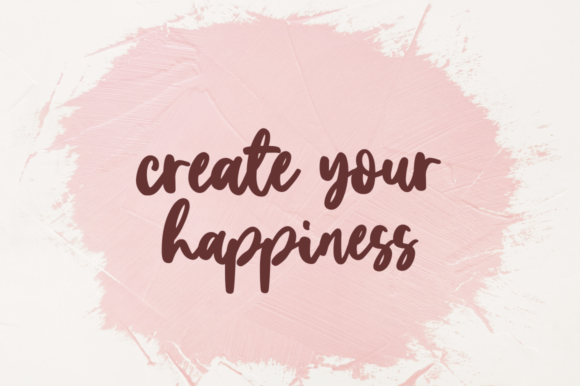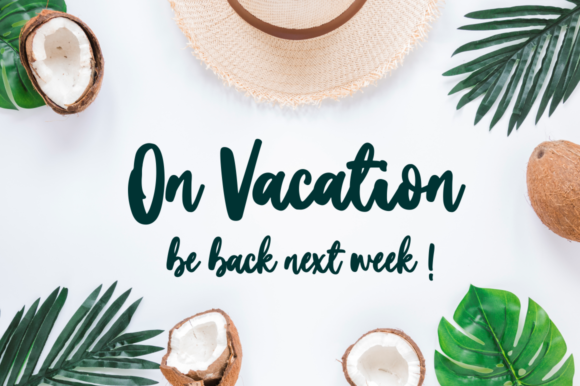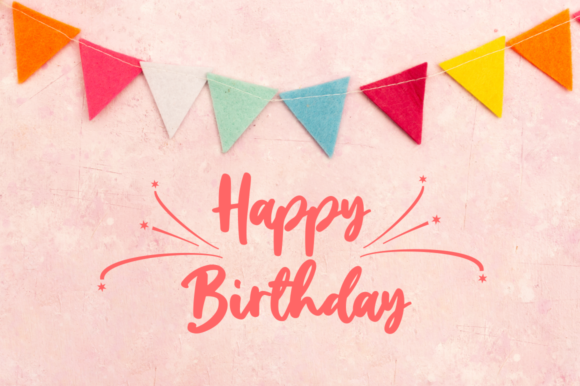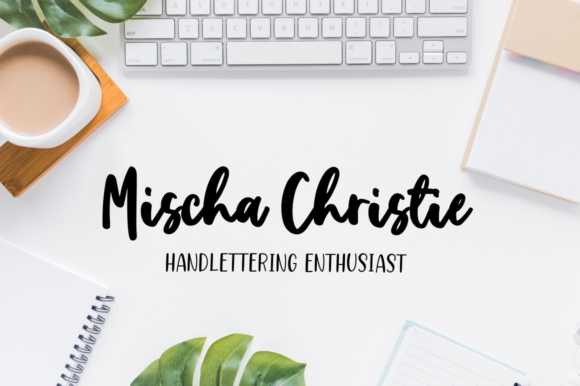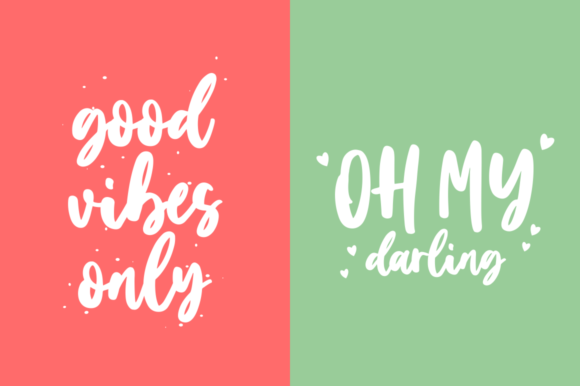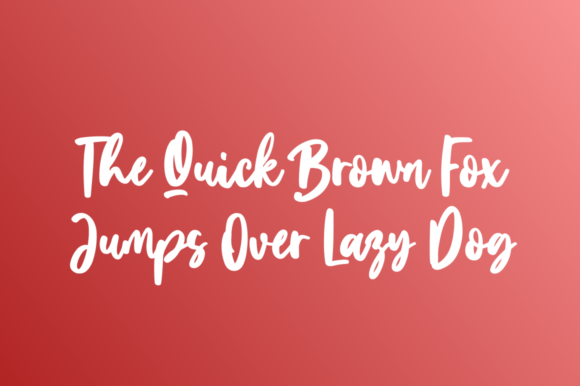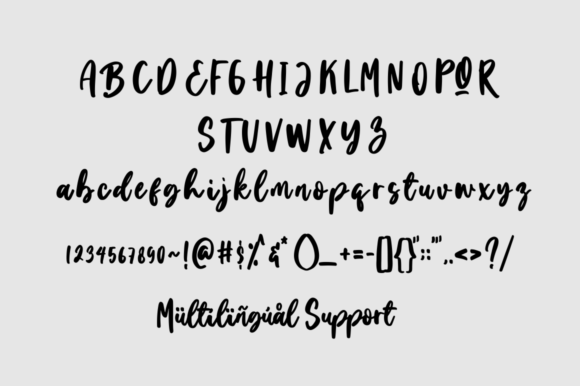
Homeday Font
About Homeday Font
Homeday is a lovely handwritten font, perfect for logos, invitations, stationery, wedding designs, social media posts, advertisements, product packaging, product designs, label, photography, watermark, special events and much more.